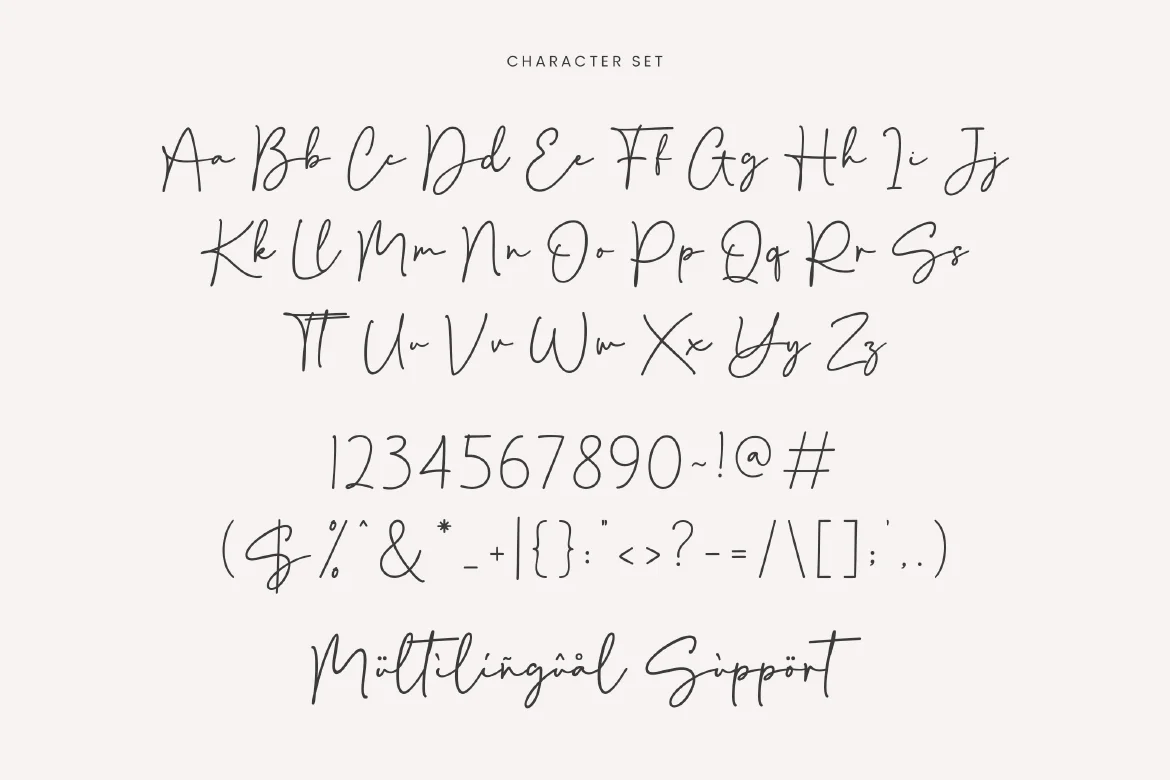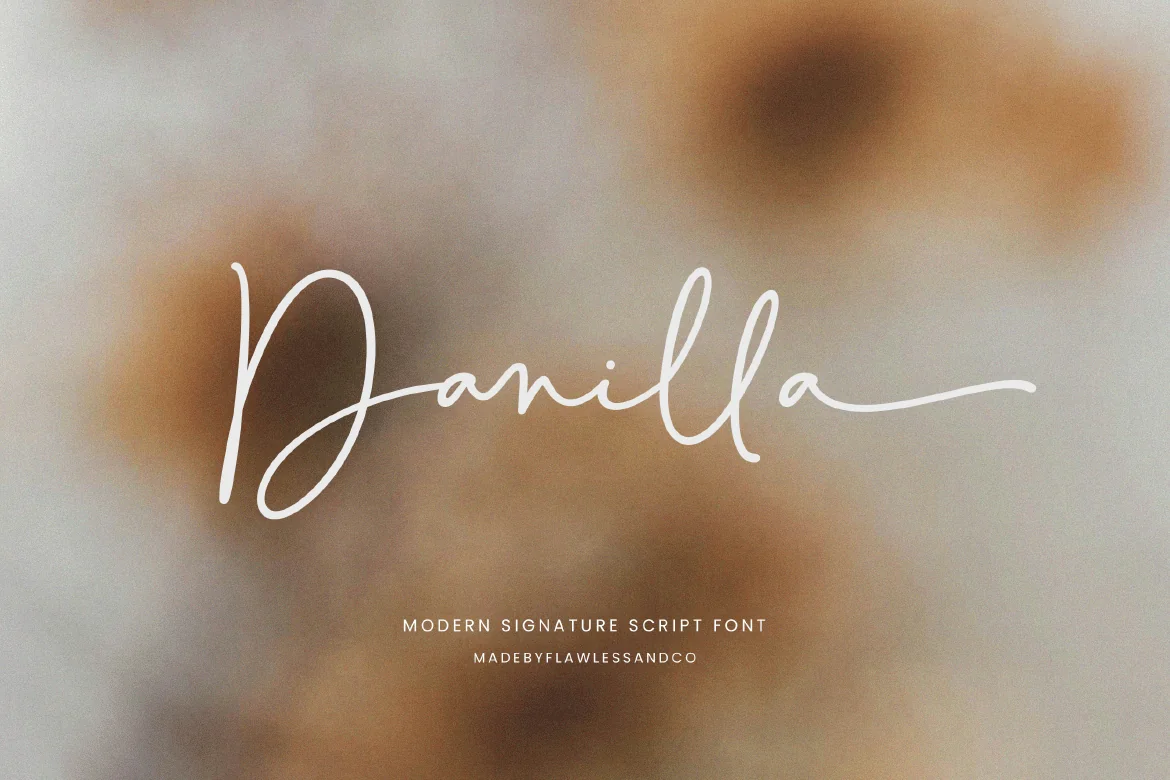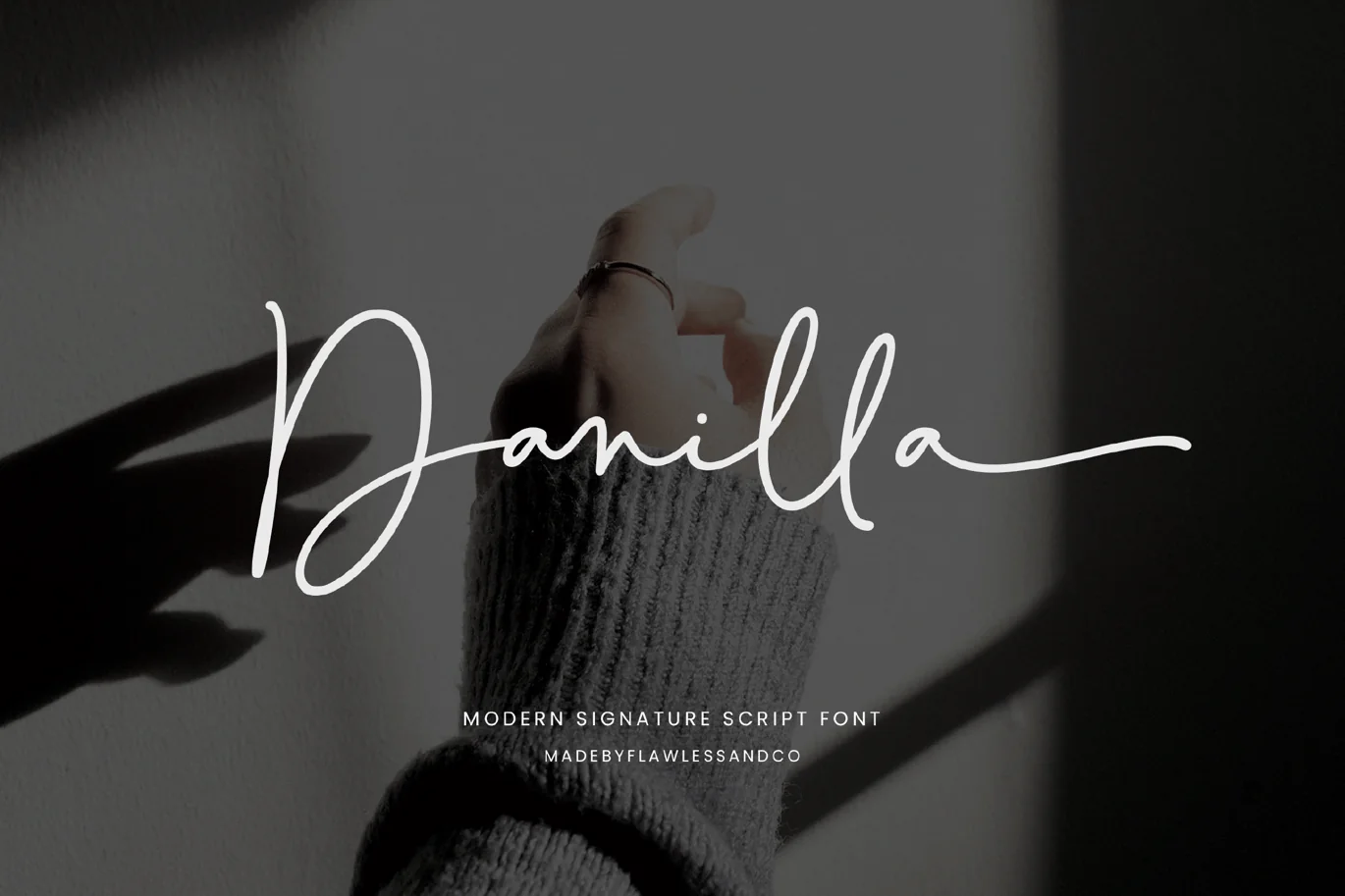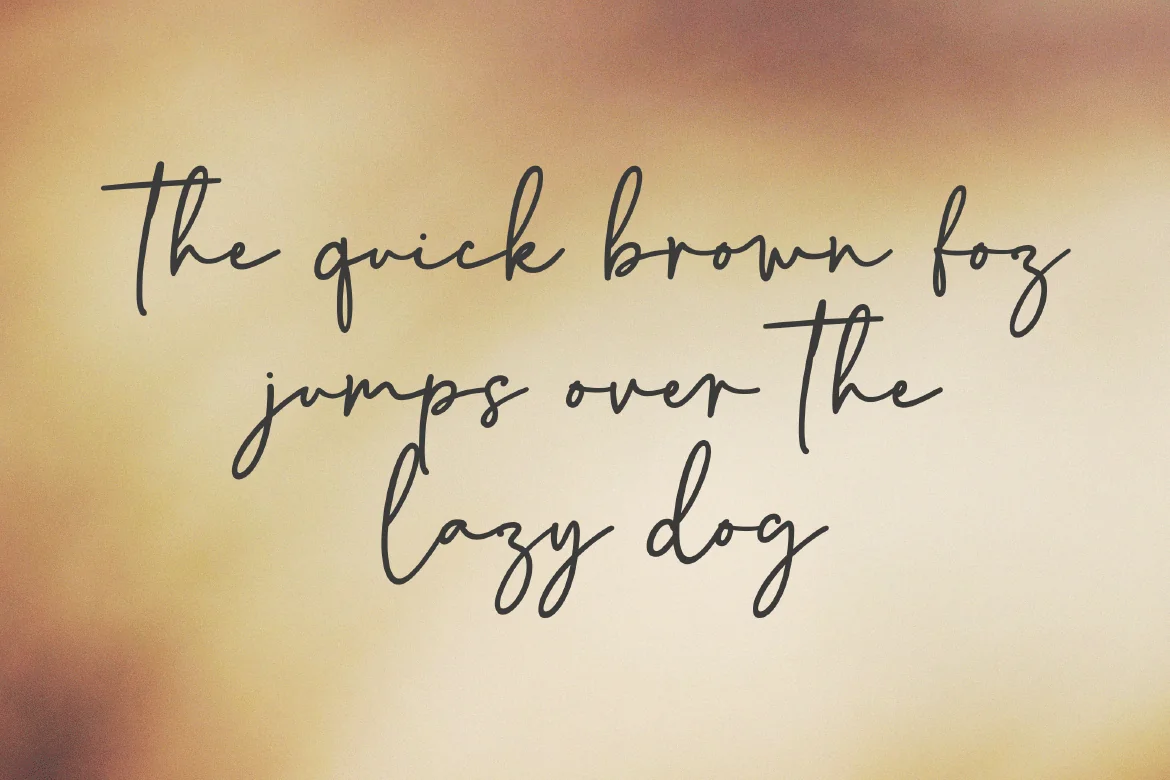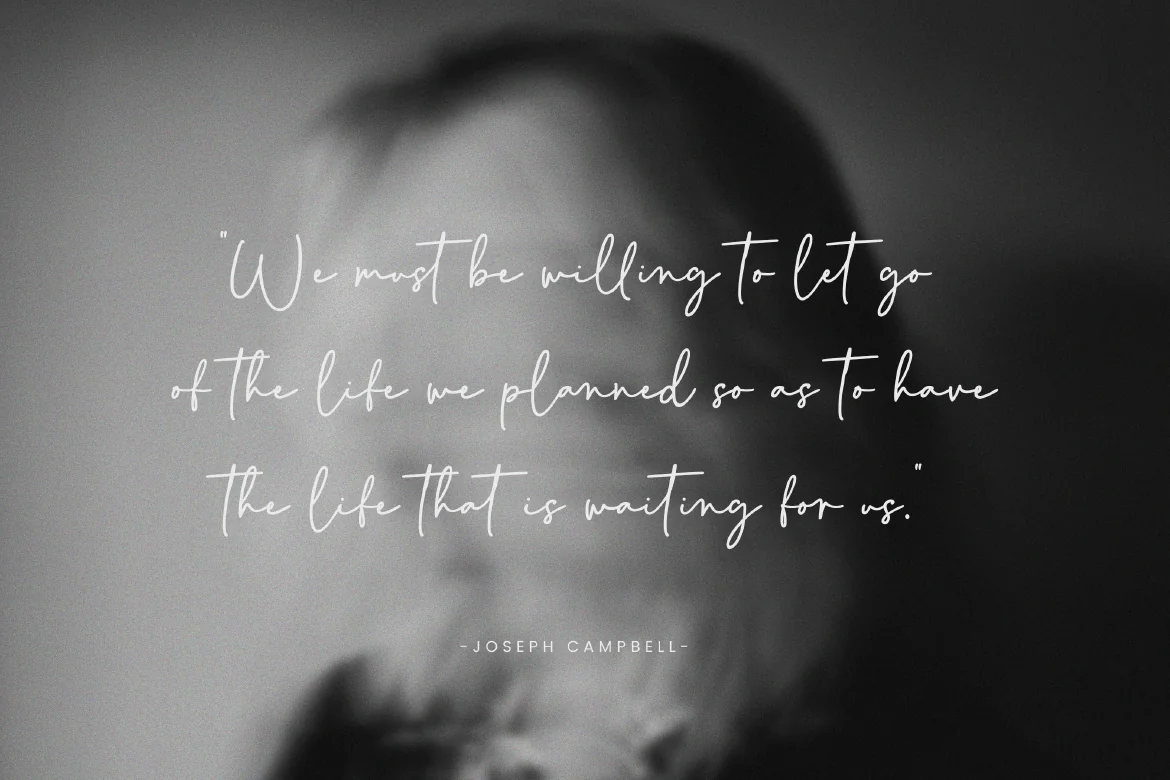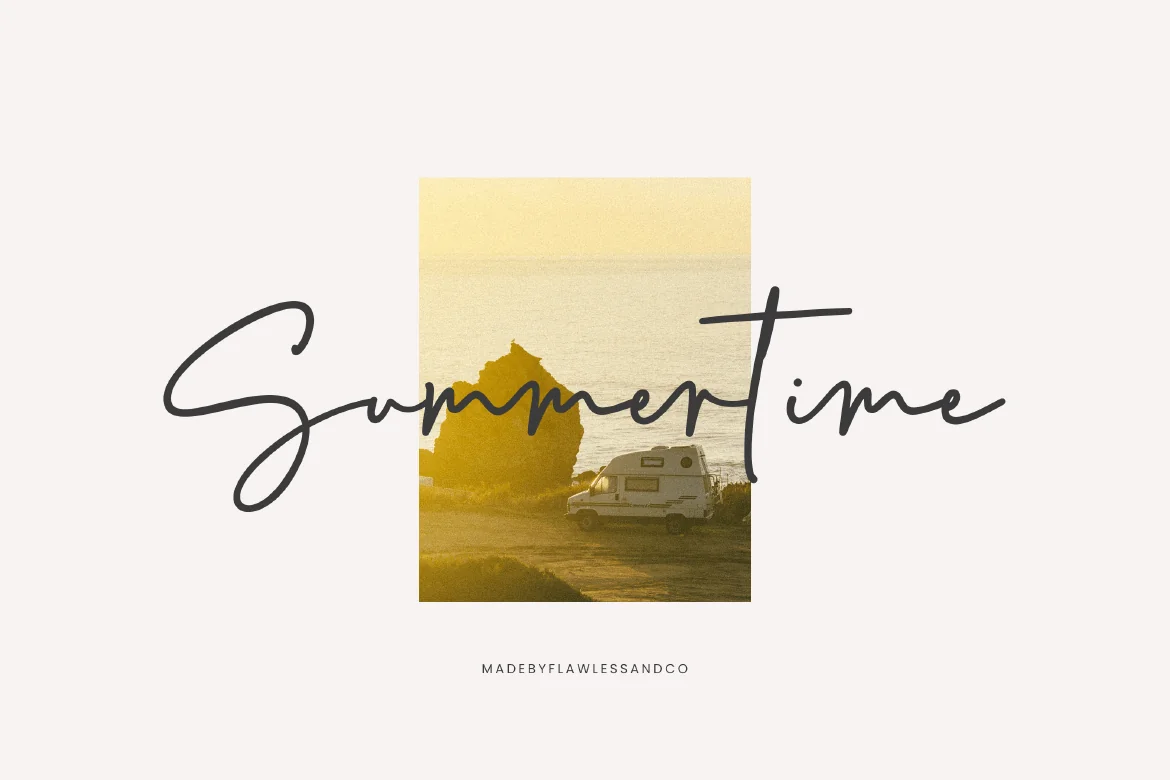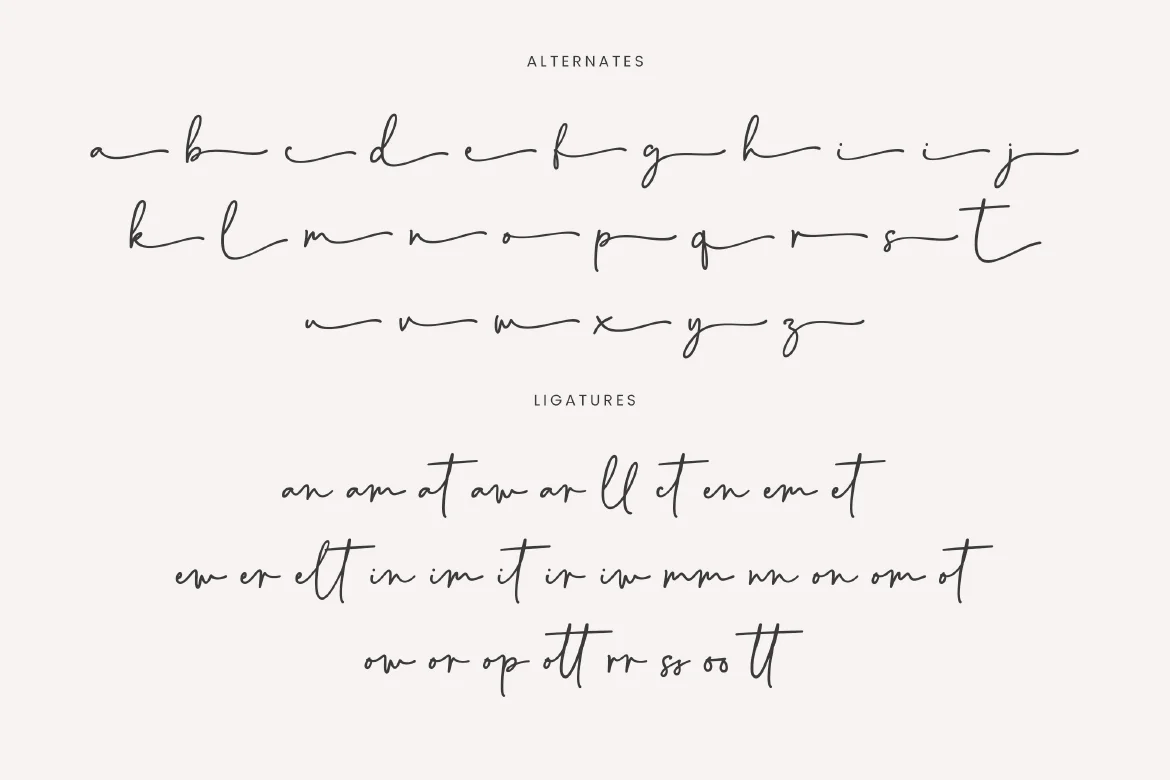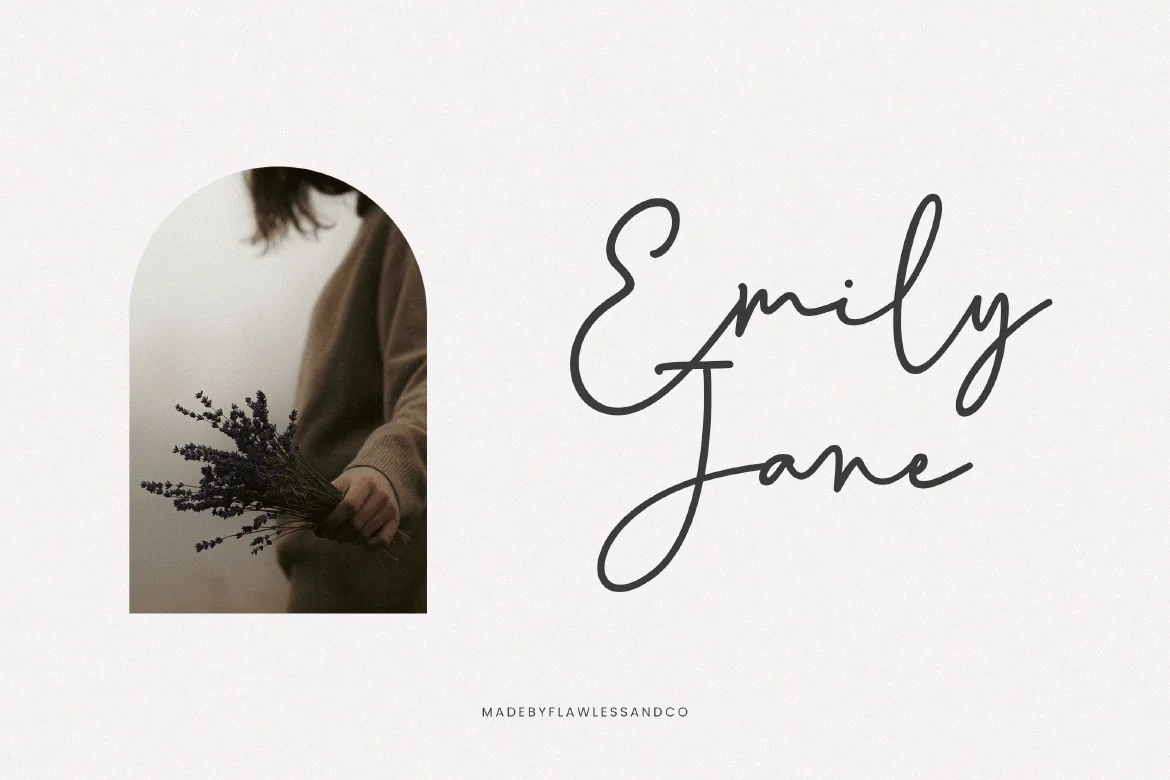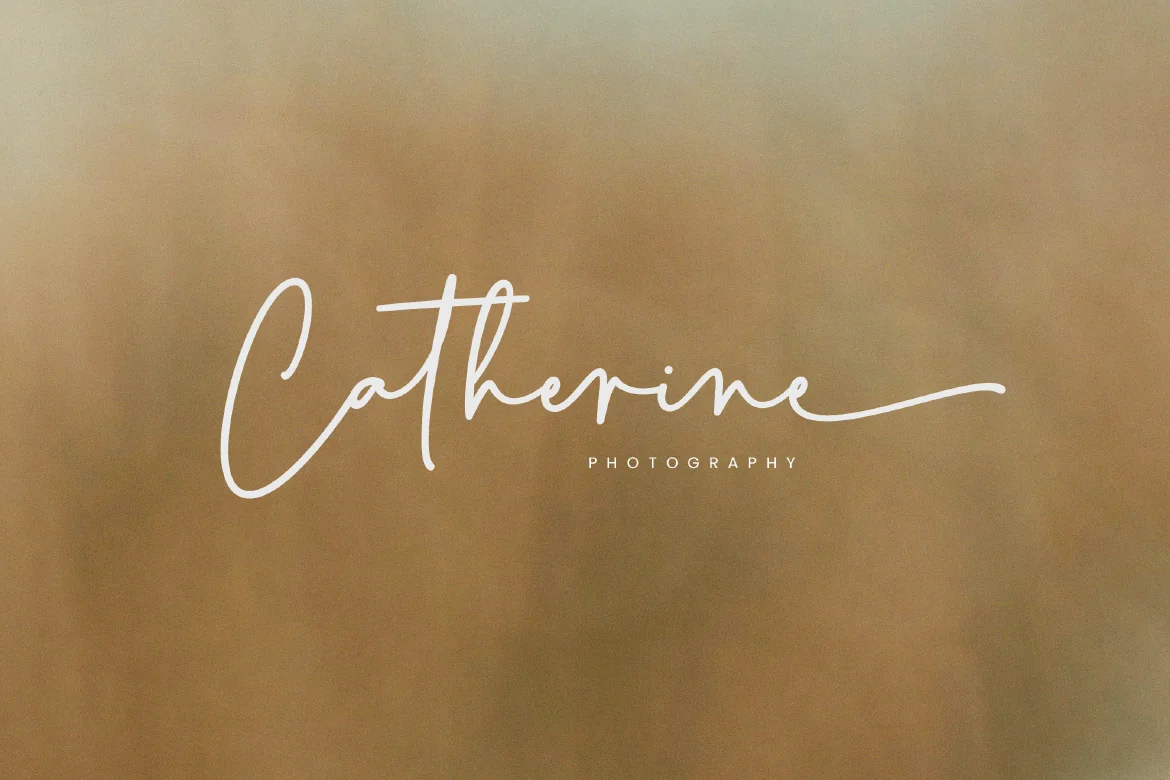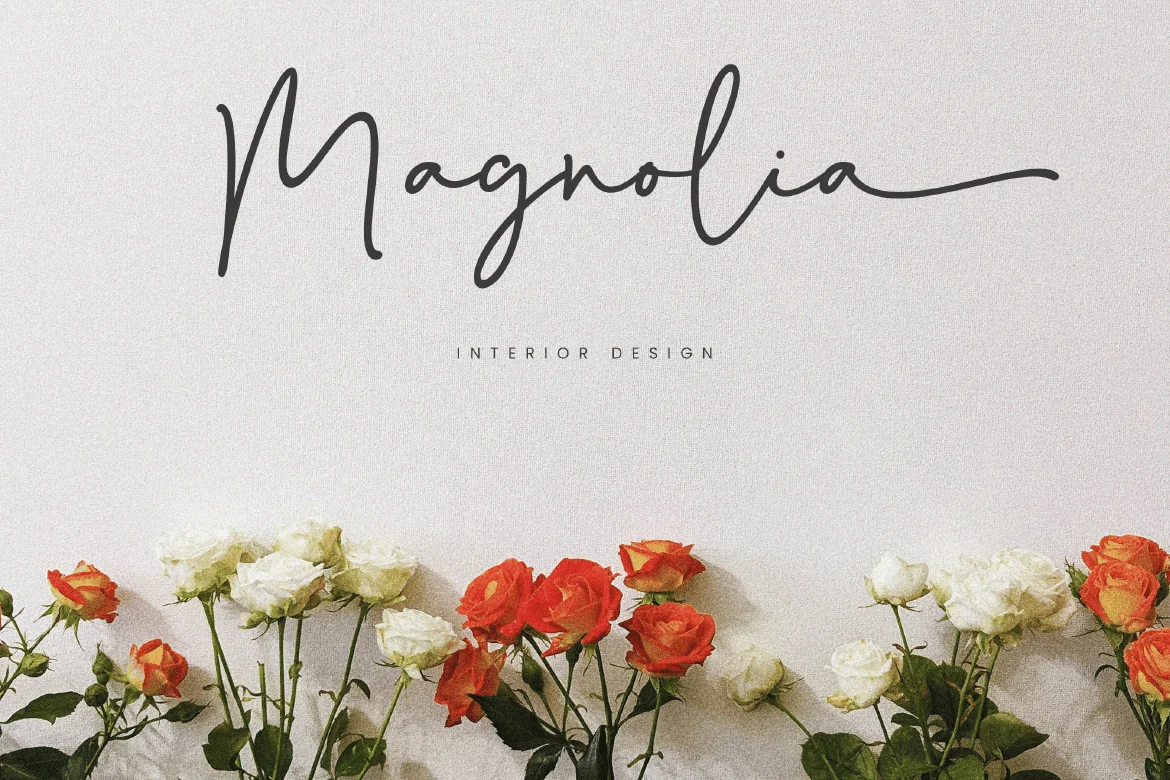
Danilla – Signature Script Font
Introducing “Danilla” a modern signature script font. Elevate your designs with “Danilla,” a modern signature script font that exudes elegance and sophistication. With its flowing curves and stylish flourishes, Danilla adds a touch of personal flair to any project, whether it’s branding, invitations, or social media graphics.